In most IDEs, you may choose whatever font you like. If you find an oldstyle font more readable, pick it.
Note that all (nearly all?) oldstyle fonts are proportional, while proportional fonts have some issues when using them in programming context.
Aside that, let's test and compare some oldstyle fonts to the fonts usually used in IDEs. I have only Windows environment for tests; if anyone could add illustrations for fonts used in MacOS or Linux, feel free to edit the answer.
There are multiple oldstyle fonts installed by default in Windows/Microsoft Office:
In order to avoid duplicates and shorten the answer, I take only three oldstyle fonts: Georgia, Corbel and Gabriola and three classical fonts: Courier New, Lucida Console and Consolas.
Courier New
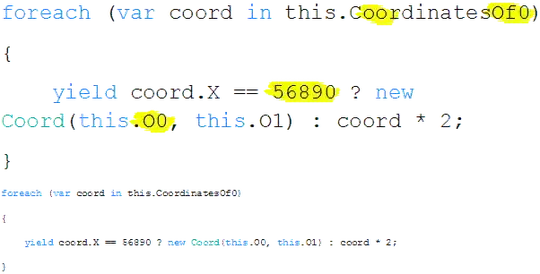
Simple to use, but hard to make the difference between the digit "0" and the capital "O". The text is too light, which would make it difficult to read on a black background with light text.
Lucida Console
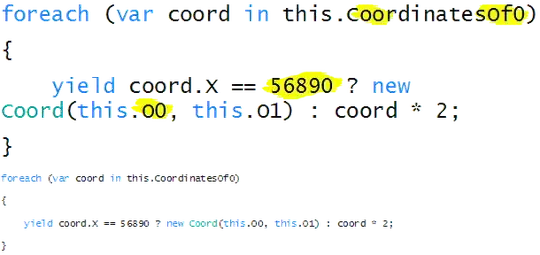
Same problem with digit "0" and capital "O", but compared to Courier New, the text is easy to read even on black background.
Consolas
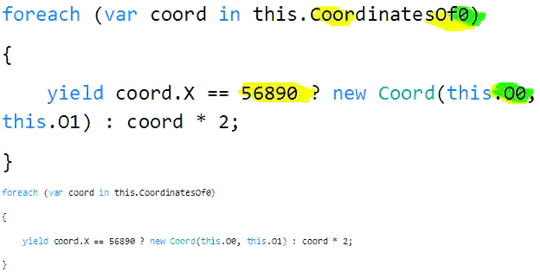
The recent Consolas font was specifically created to use in IDEs and other source code-related contexts and to replace the former Courier New. It totally removes the ambiguity between the letter "O" and the digit "0" by using slashed zero character.
It remains very readable for both large and small sizes and for both light text on dark background and dark text on light background contexts. If you use ClearType, Consolas is an excellent choice.
Georgia
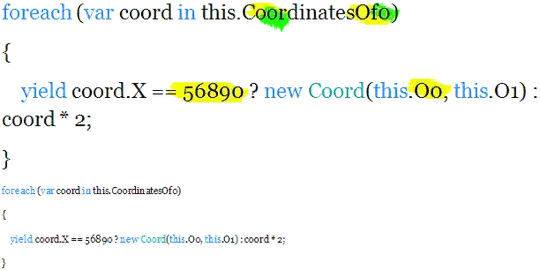
This is a nice font, but was rather designed for print. On an LCD screen, small text has some glitches with whitespace which feels not very uniform (as you can see on the screenshot).
The largest issue is that there is nearly no way to make the difference between the small letter "o" and the digit "0". Seriously, is it CoordinatesOfo or CoordinatesOf0? This sole issue is a deal breaker for an IDE.
Corbel
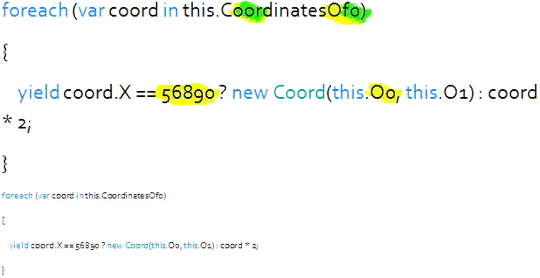
The font is very readable, even with a small size text. Due to oldstyle, numbers are very easy to read too.
On the other hand, this font suffers the same issue that Garamond: no clear difference between the small letter "o" and the digit "0". This sole issue is a deal breaker for an IDE.
Gabriola
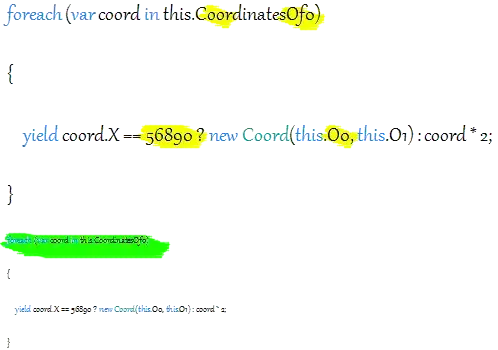
As you can see, the font is impossible to use, unless you set a very large size in your IDE. This font is for happy new year cards, not for programming.
In conclusion, most oldstyle fonts suffer from the similarity between the small letter "o" and the digit "0", and in many cases, there is no way at all to make the difference between the two. See for example Gabriola or High Tower Text: those two characters seem identical.
Solutions
If you're in love with oldstyle figures, there are two other solutions.
1. OpenType oldstyle
Actually, OpenType has an oldstyle feature for some non-oldstyle fonts. For example, Consolas font has this feature. I can't find neither how you can turn this feature on in Visual Studio, nor even how to do it in Microsoft Word 2007, but you may deep more in this direction if oldstyle is something you really need, but can't afford losing the strong points of monospace fonts.
Microsoft Word 2010 seems to support old-style option for OpenType fonts, but I don't have Office 2010 to actually test it.
Visual Studio 2010 may also be able to support it through an addin which changes the WPF options of the editor, since the oldstyle option exists in XAML and Visual Studio 2010 and later uses WPF.
2. Syntax highlight
Another solution is to use a real oldstyle font, but with syntax highlighting for digits:
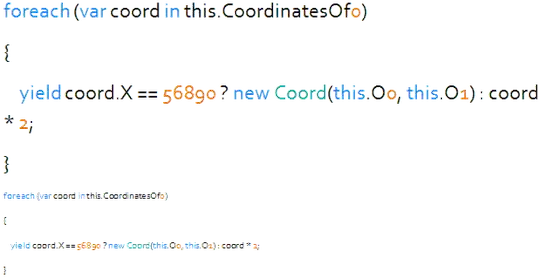
Personally, I don't know any IDE which would support that. Visual Studio, for example, let you personalize the color of numbers (for example "123D" in var a = 123D;), but not digits (for example '5' in this.label5.Text = "Hello";). But there is probably a way to write an addin for an IDE to change the syntax highlighting.